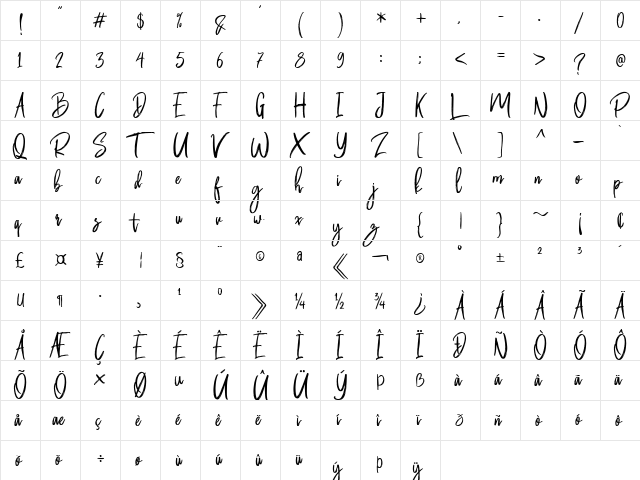
Butter Luchy Free Regular
| Foundry | Ferry Hadriyan (fey design) |
Design Context for Butter Luchy Free Typeface
Butter Luchy Free is a composed and adaptable typeface that performs quietly and consistently across a wide range of design contexts.